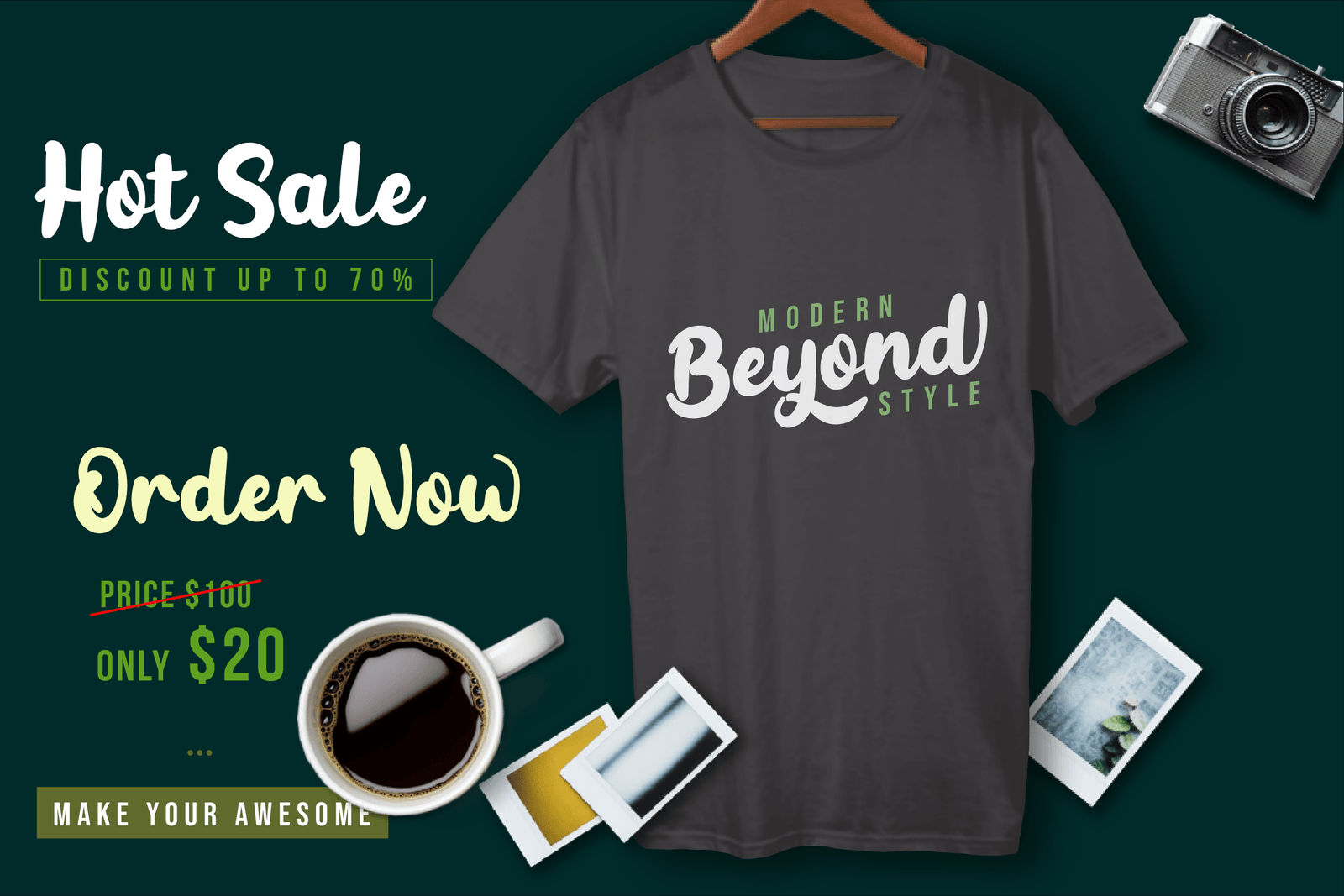
Inner Vintage
Introducing our newest Inner Vintage Font.
This font is created with original hand-drawn strokes with a relaxed and elegant feel.
This font also offers beautiful abstract typographic harmony for a wide variety of design projects, including natural handwriting in digital form for designs, Quote designs, for social media business designs, advertising, trademark brands, promotional banners, lettering, posters, signatures, and all designs requiring handwriting or whatever design you want. Start creating awesome designs with this font!
This charming font also offers the beauty of abstract typography harmony for a wide variety of design projects, including digital natural handwriting for designs, quote designs, for social media business designs, advertisements, trademarks, food and beverage promotion banners, text, posters, a signature, and all designs require handwriting or whatever design you want.